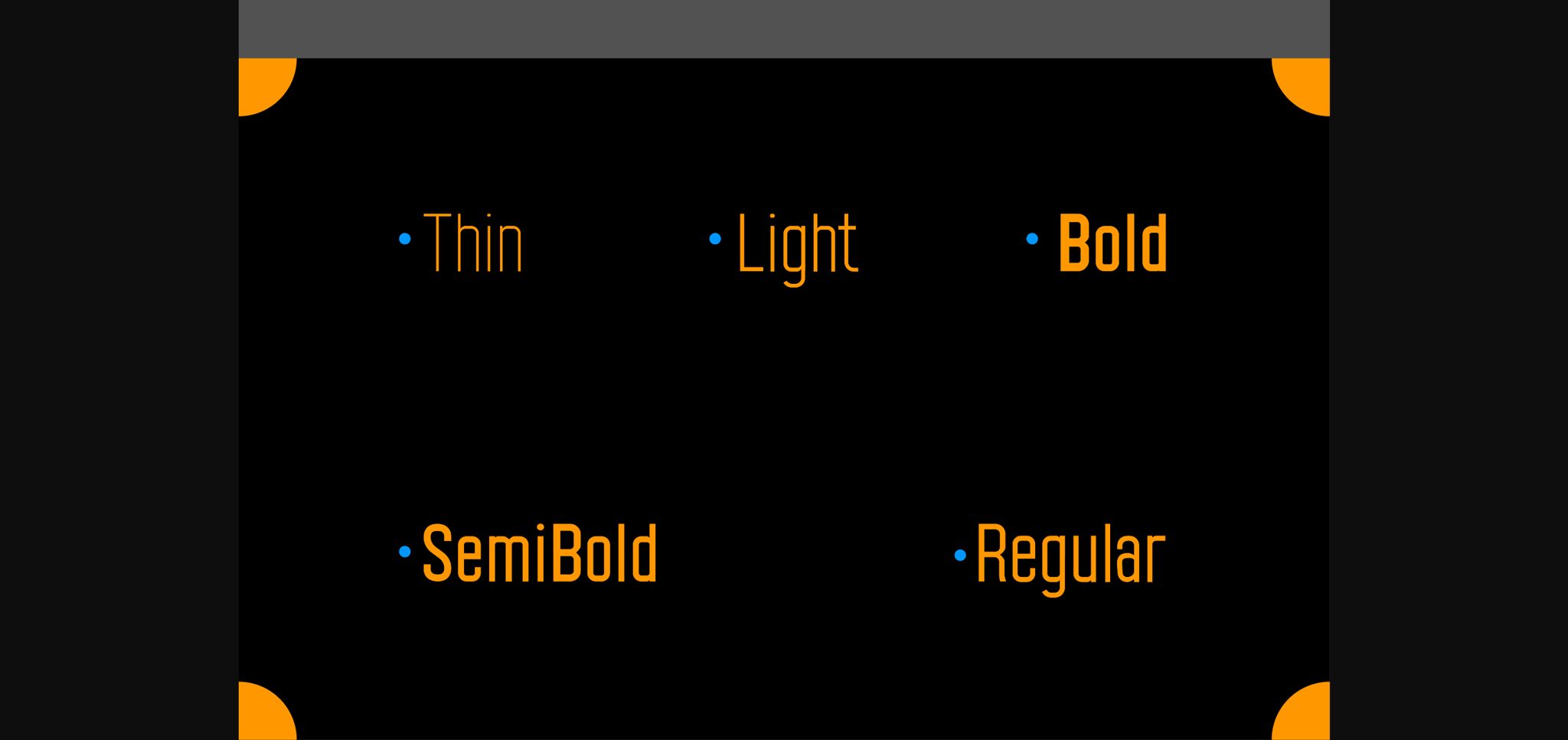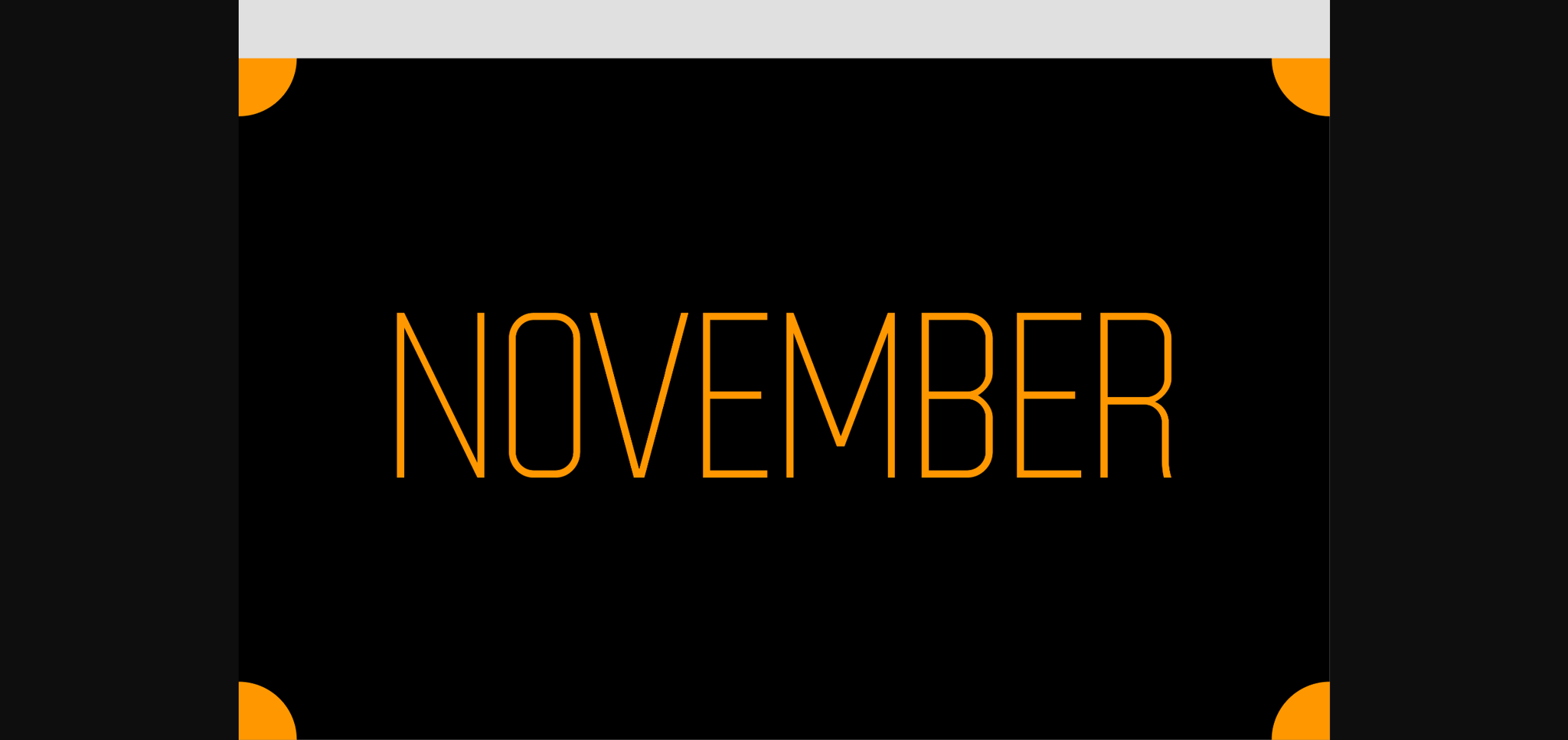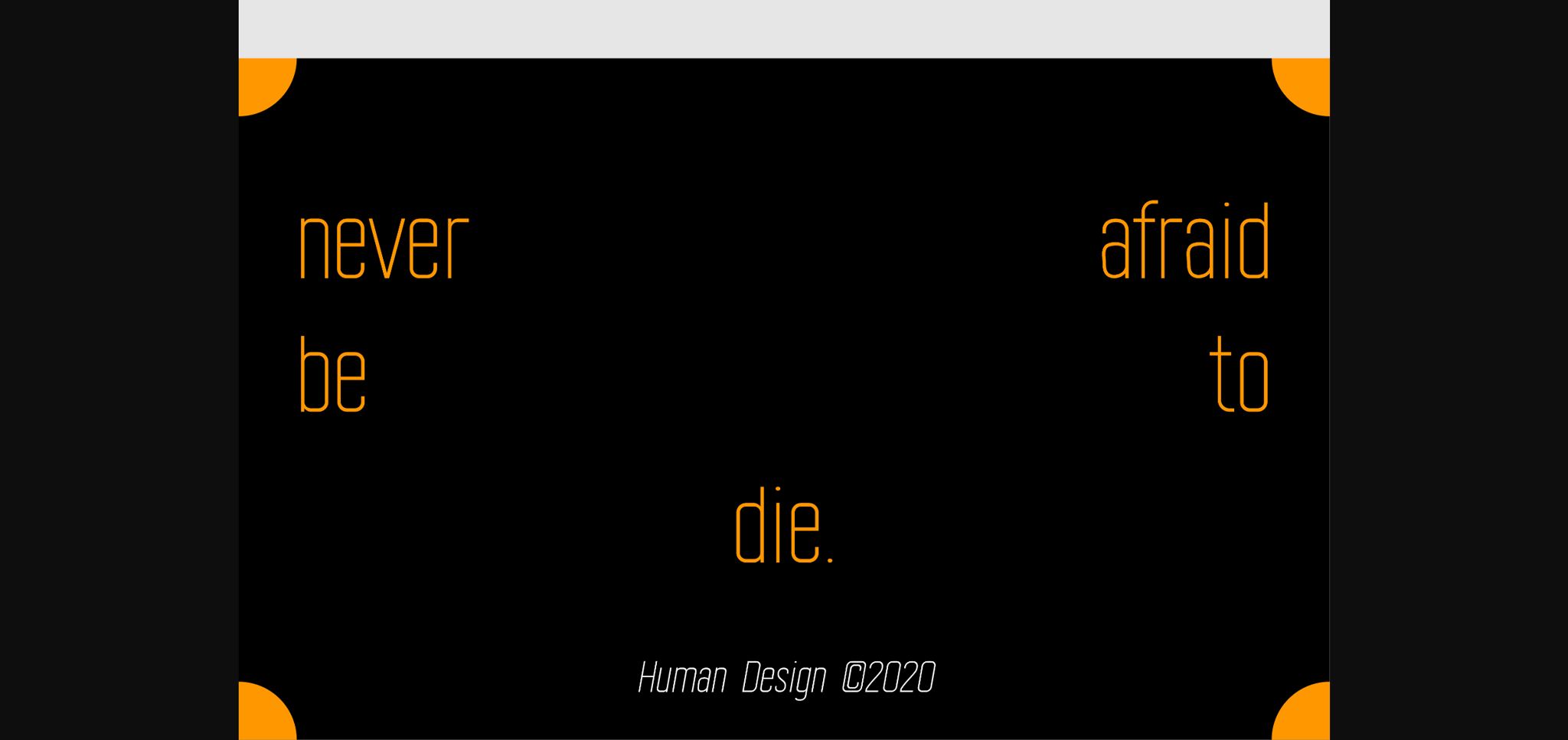
November is a neat, clean and elegant sans serif font that can easily fit into any project idea. Add it to your designs, and notice its impact on your creations!